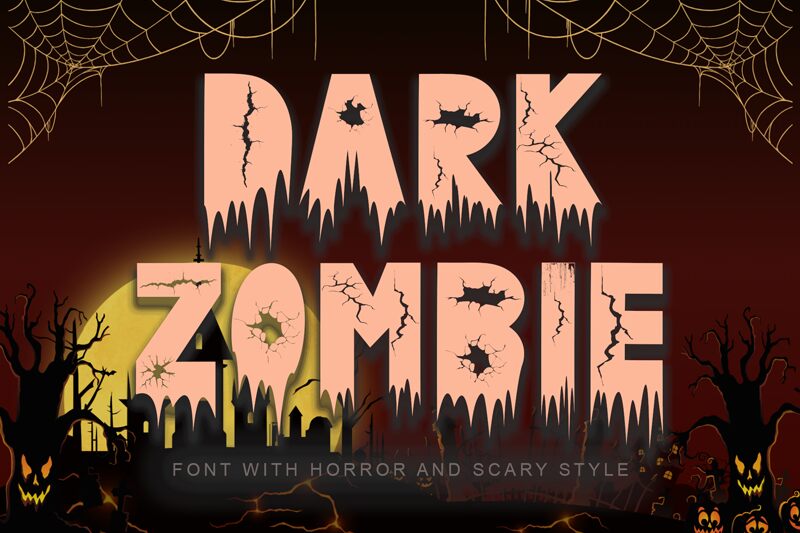
Dark Zombie font by Yoga Letter is a free sharp holiday-font creation. It evokes a sense of eeriness with its jagged letter structure that significantly adapts a Halloween ambiance. Ghostly themed with chilling aesthetics suitable for darker themes; usage can be incorporated into pop culture projects, marketing materials, and creative purposes. This mysterious and intimidating typeface creates impressive pieces when put into effect.
Dark Zombie can be used on numerous occasions. It is suitable for elements of design that appear on flyers, posters, and T-shirt designs for Halloween celebration. Otherwise, it is used in greeting cards, book titles, and others. This horror inspired typography fits perfectly on merchandise and products oriented toward a younger audience.